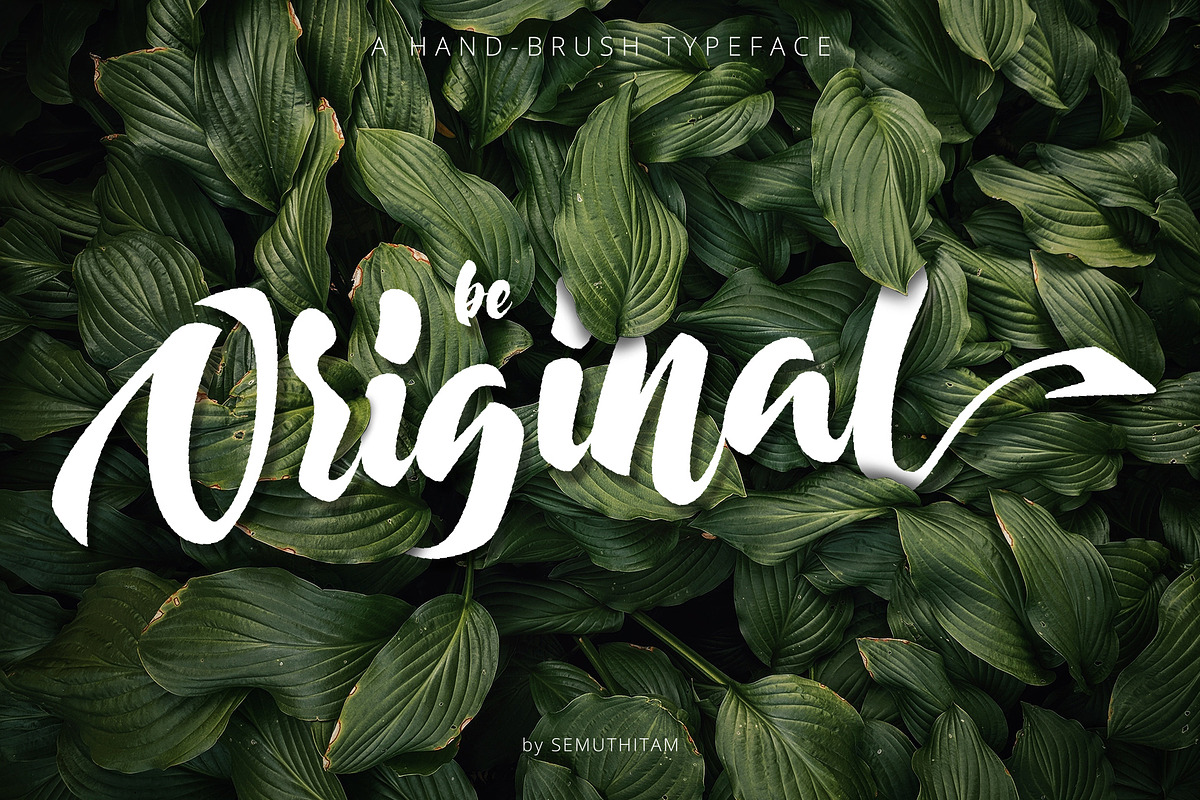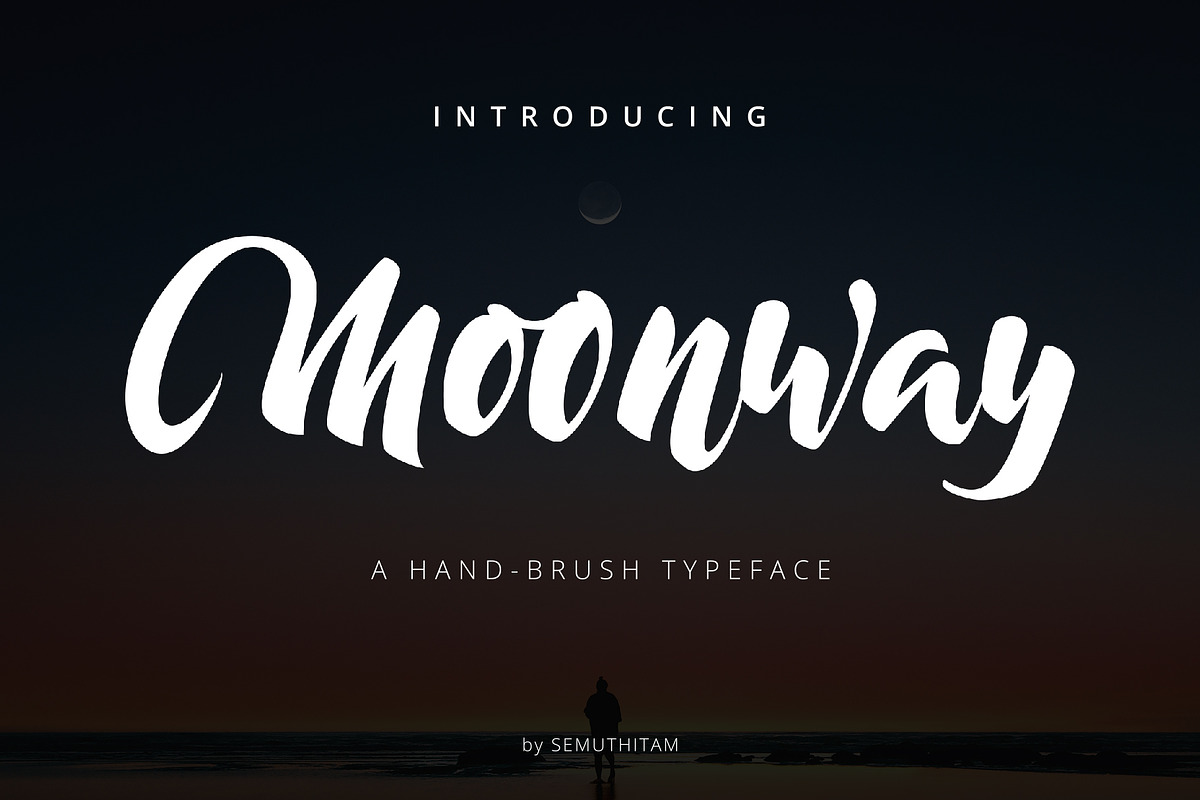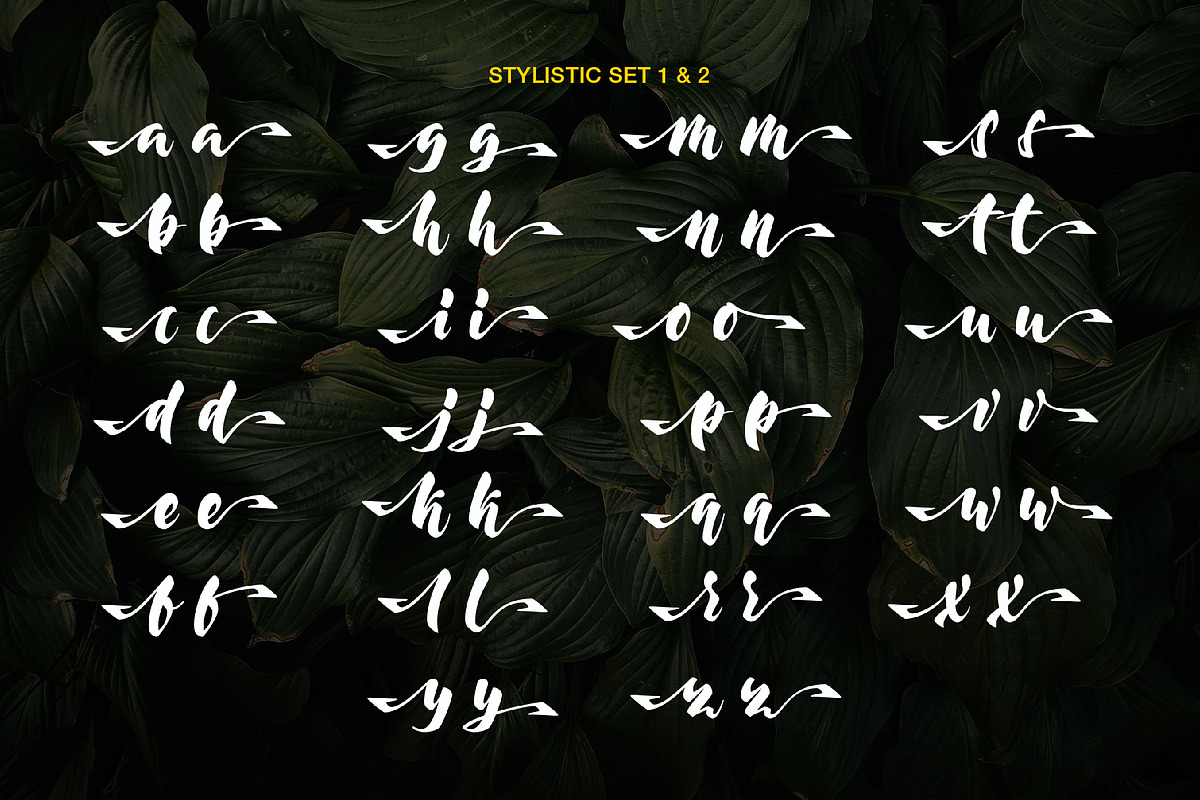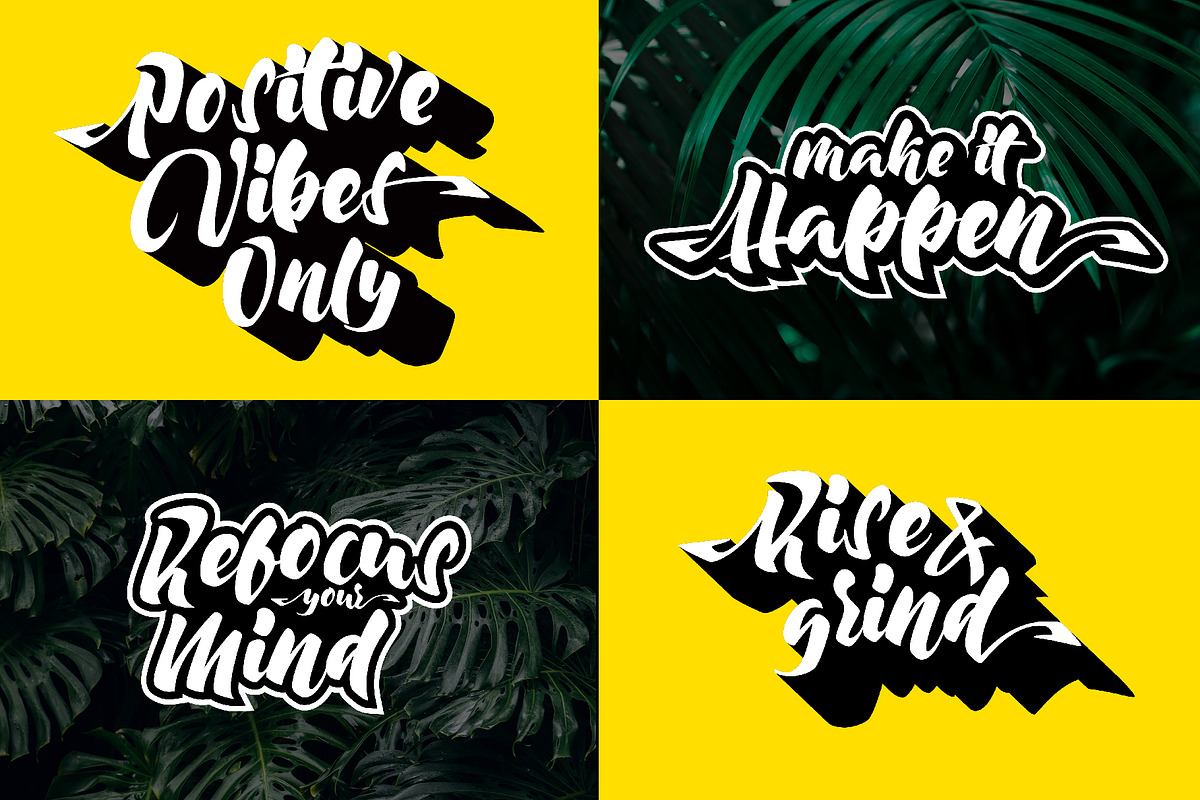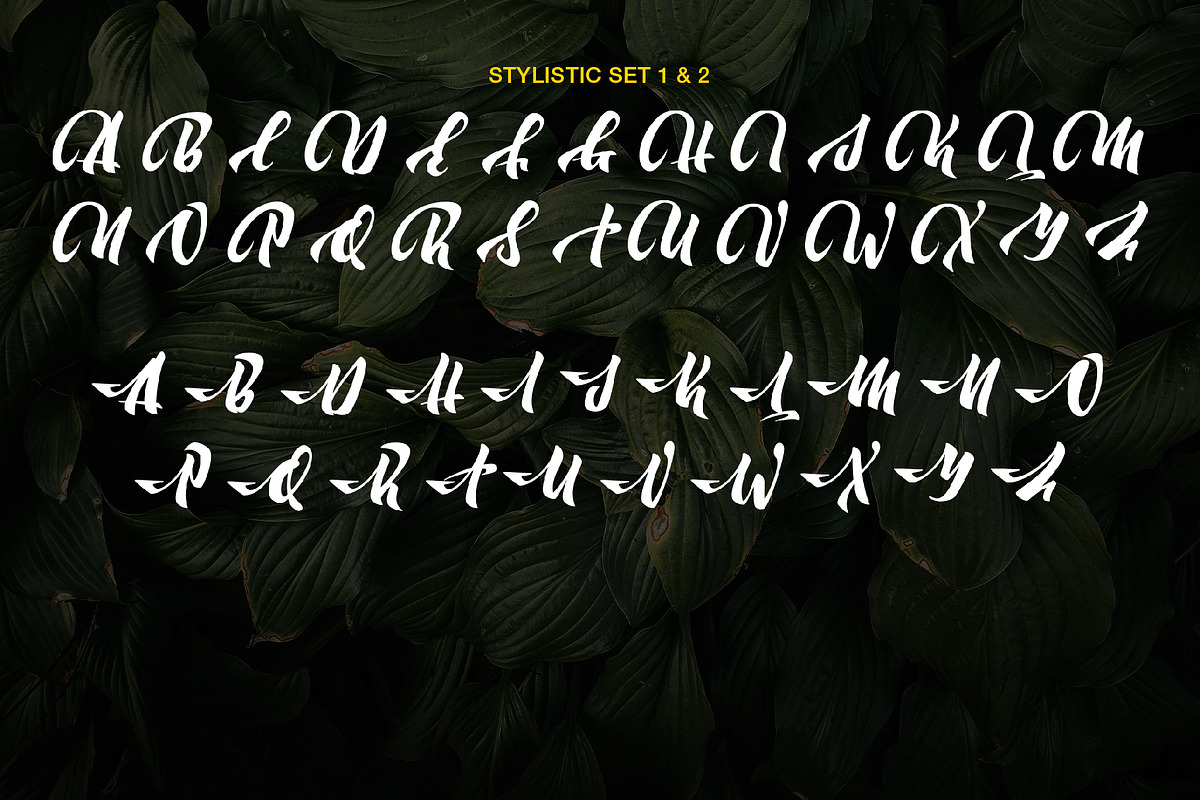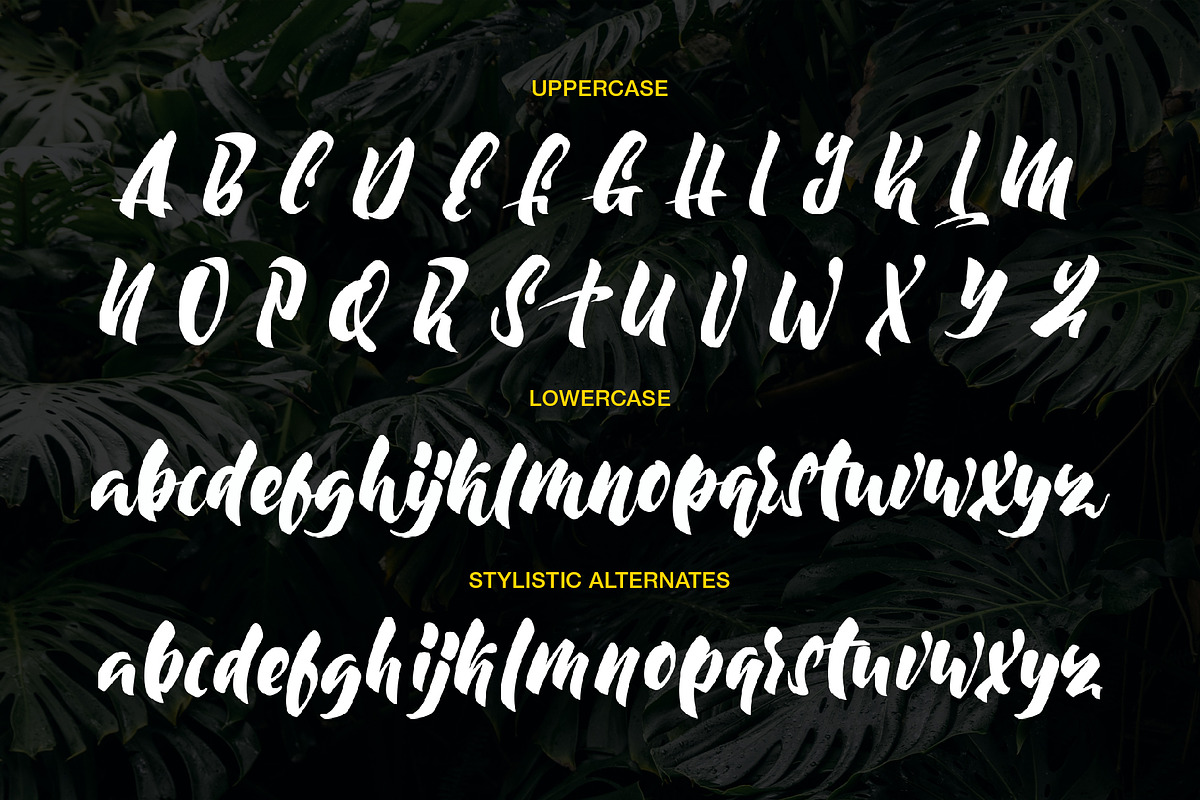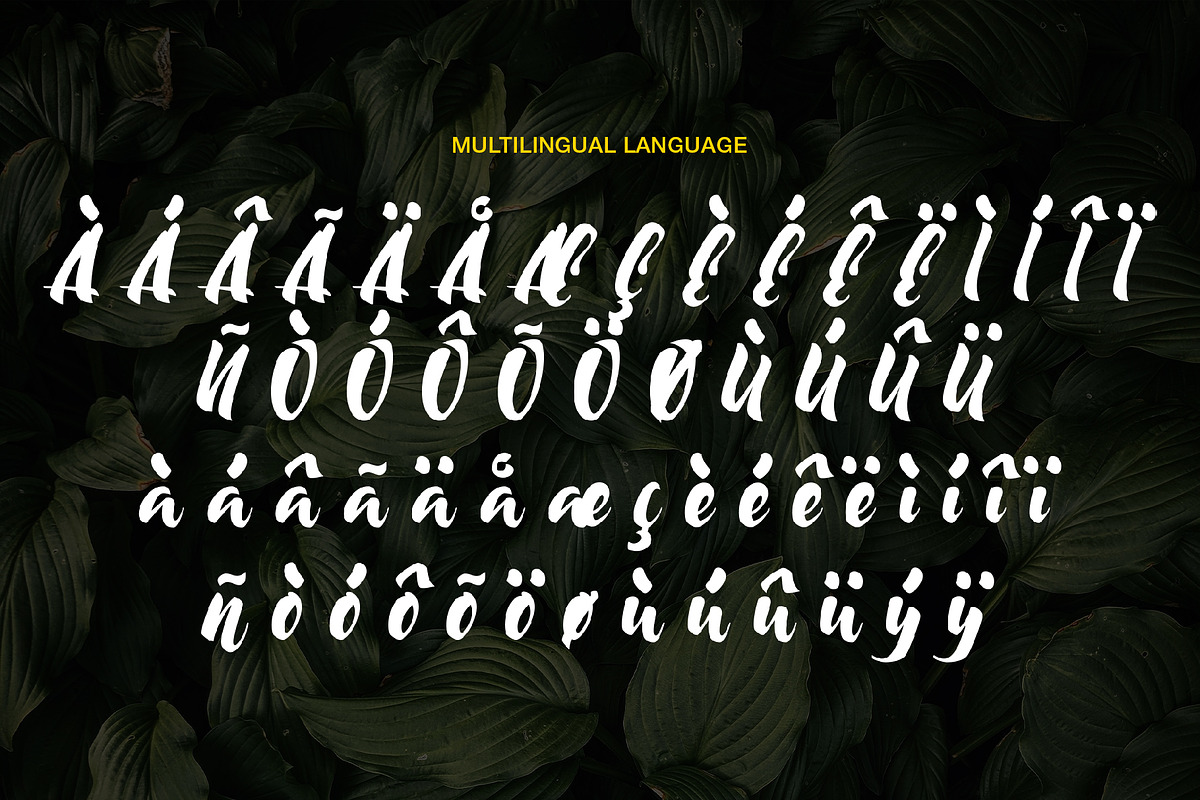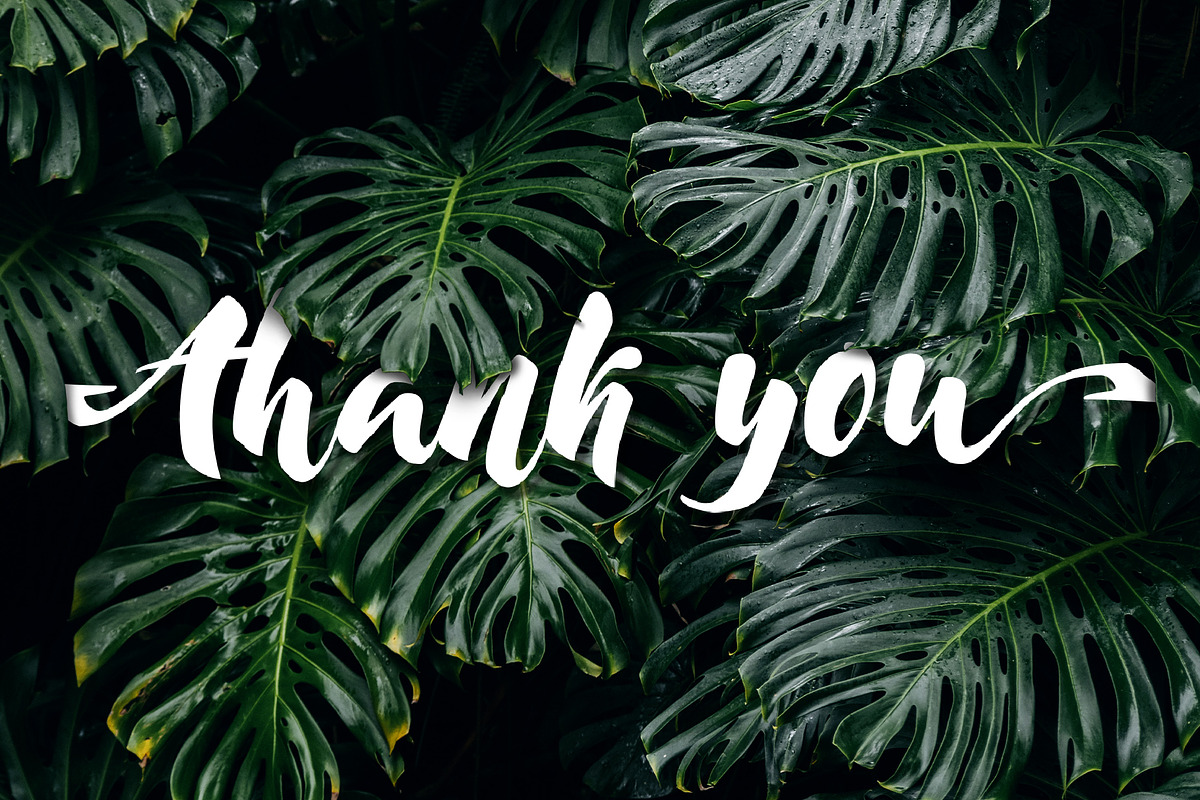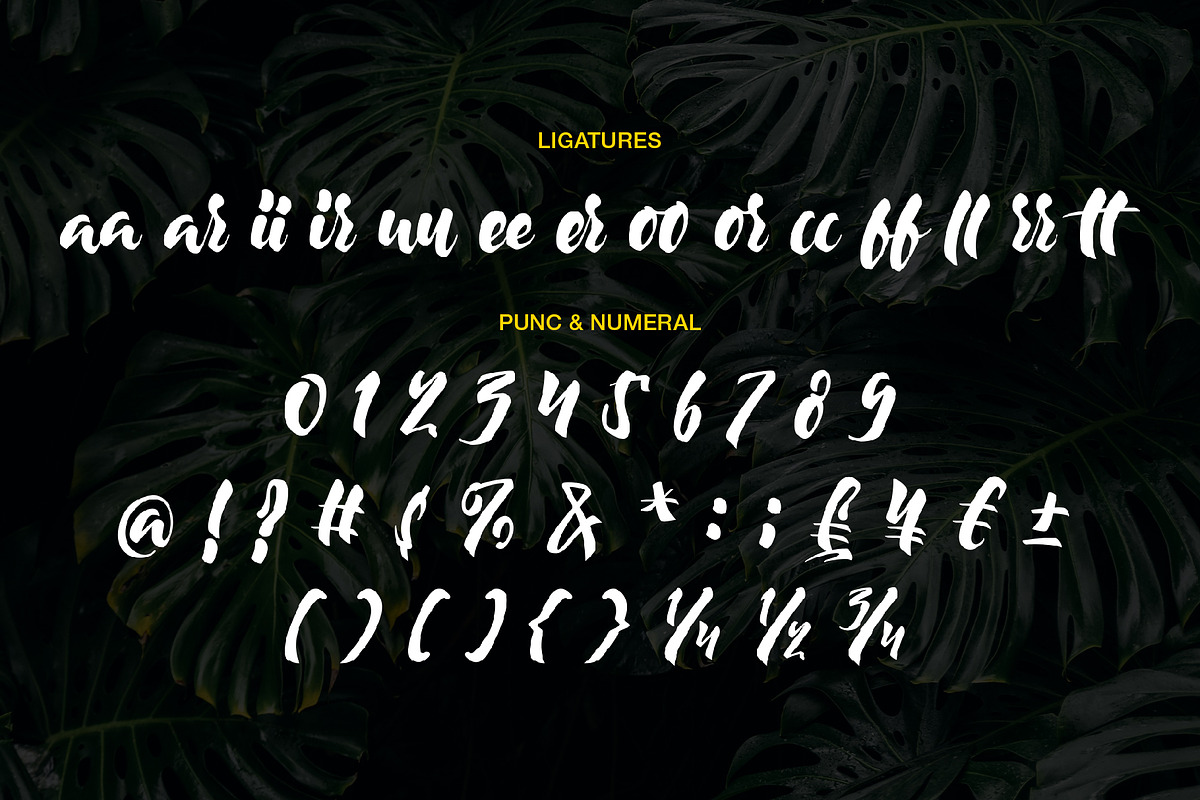
Moonway - A Hand Brush Typeface
Moonway is a hand-brush typeface style, Back to hand lettering style!!!, usually you'll use hand lettering style on your project. Moonway comes with full set of funky uppercase, lowercase letters, numbers, punctuation, multilingual language, stylistic styles and various ligatures. To make you easily mix and match your own hand lettering style.